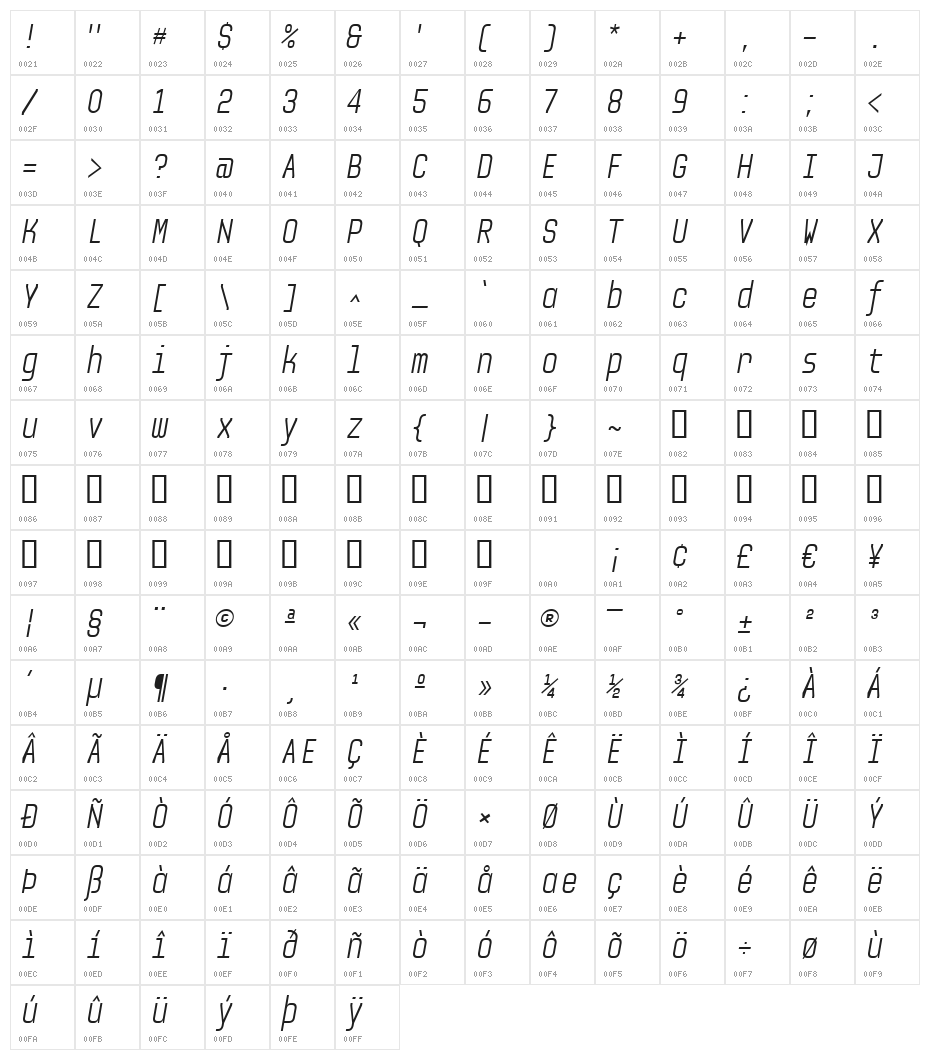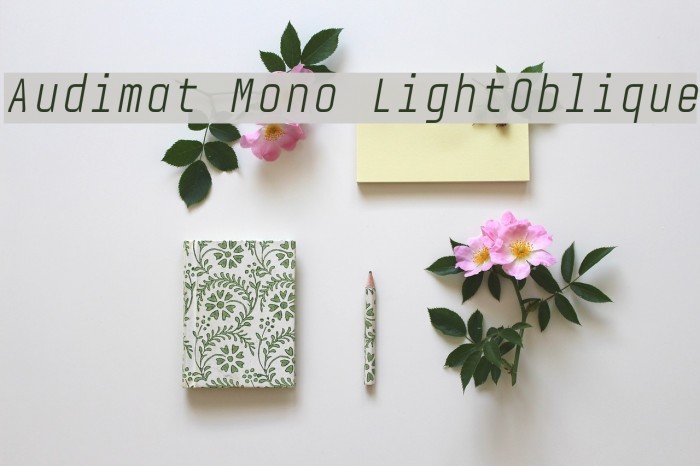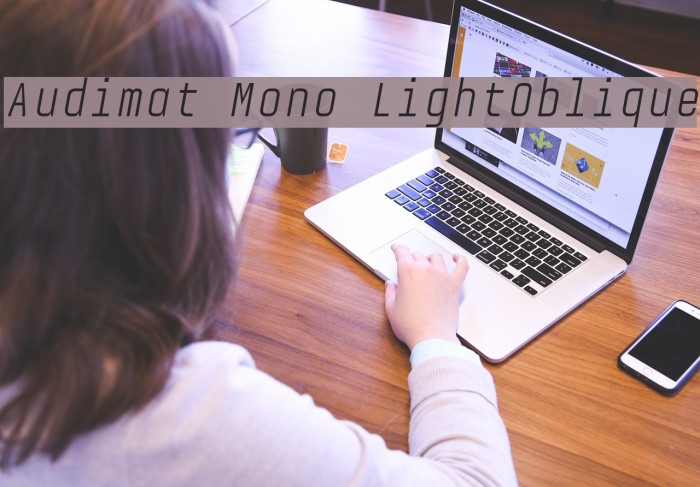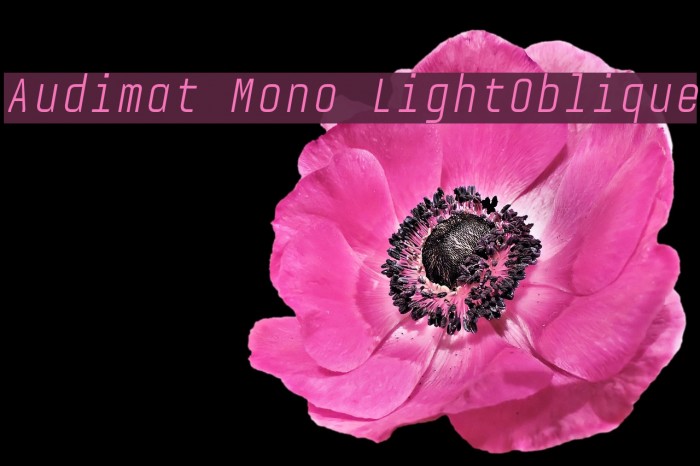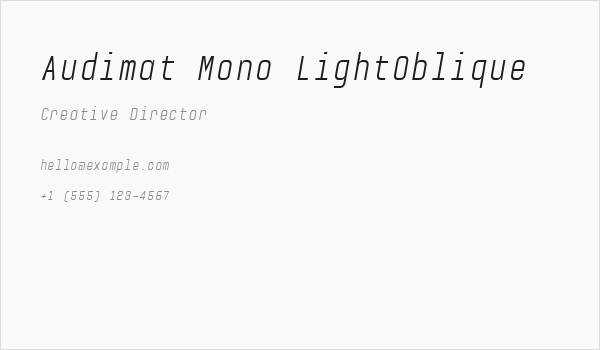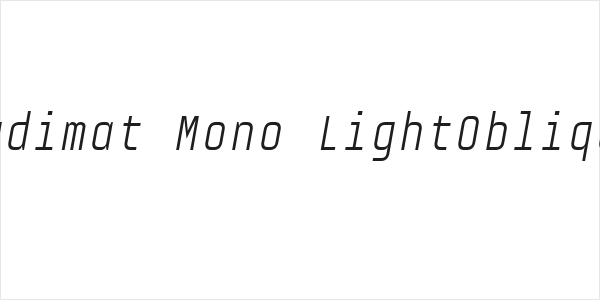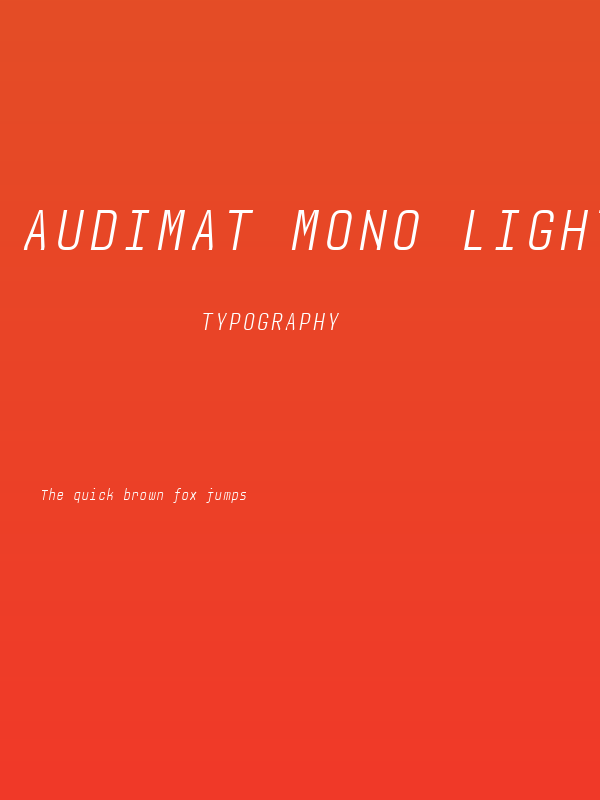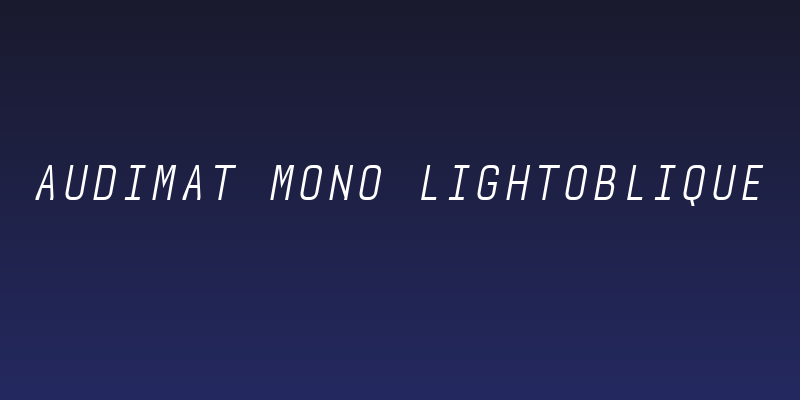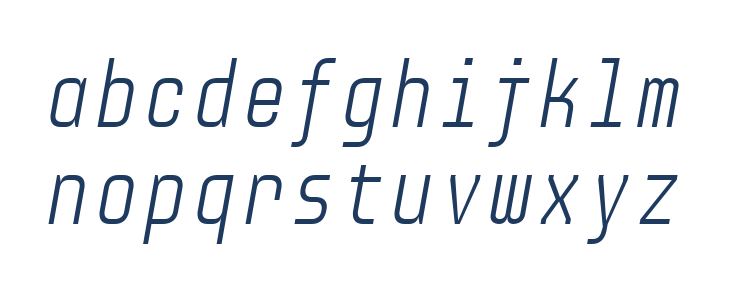
Audimat Mono LightOblique Font
Audimat Mono LightOblique Description
This font features a clean and modern monospaced design with a light oblique style. Each character is evenly spaced, maintaining a consistent width that is characteristic of monospaced fonts. The oblique angle adds a dynamic and contemporary touch, making it suitable for both technical and creative applications. The font's light weight gives it an airy and open feel, while the precise and geometric letterforms ensure clarity and readability. The characters are slightly condensed, which enhances its sleek and streamlined appearance. This font is versatile, suitable for coding, technical documents, or any project requiring a modern and professional look.
| Use Case | Coding, Technical documents, Branding |
| Proposed Projects | Ideal for coding, technical documents, modern branding, and creative design projects. |